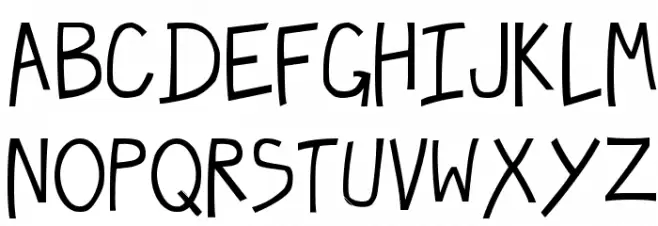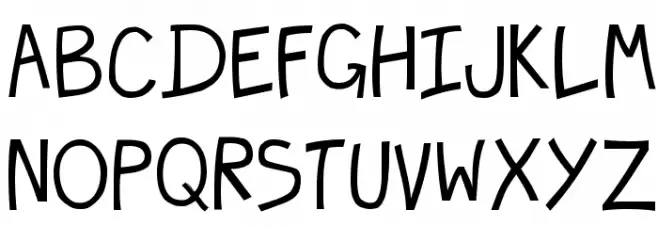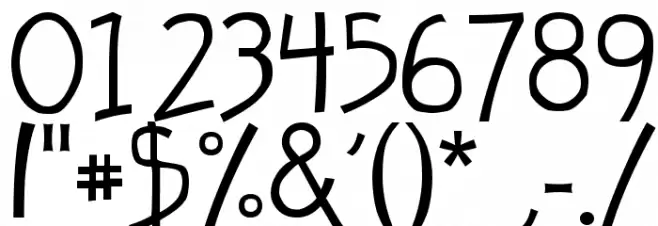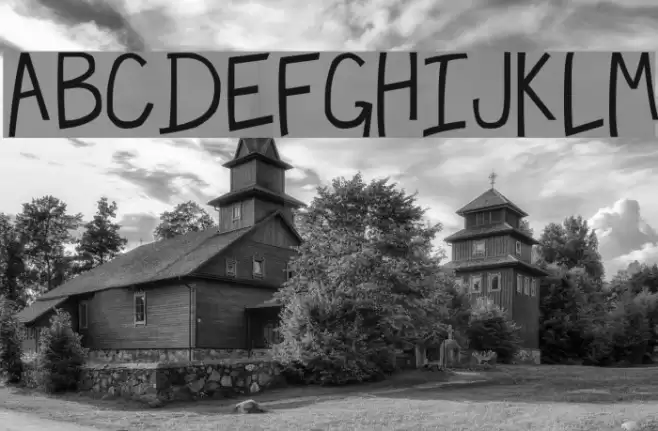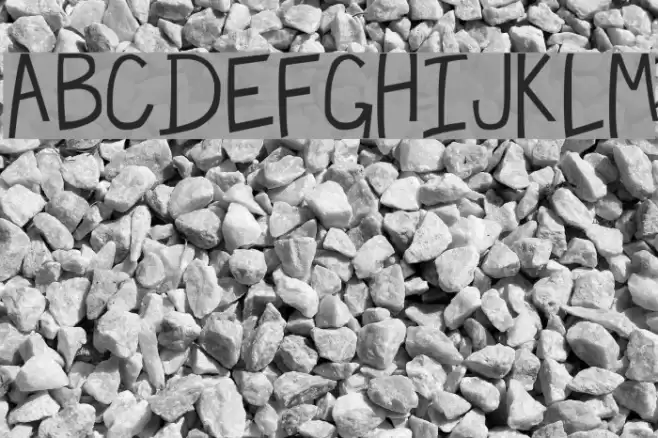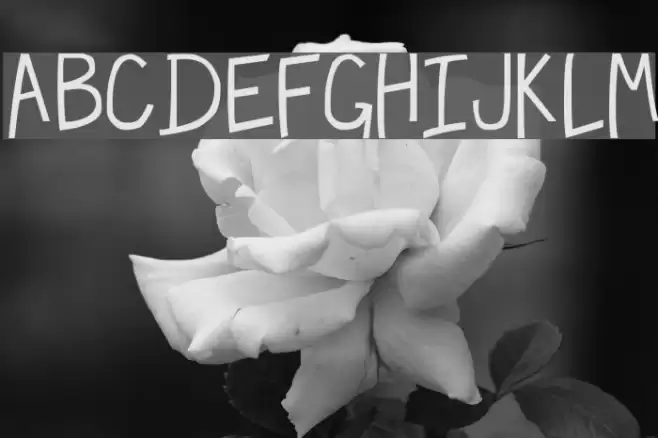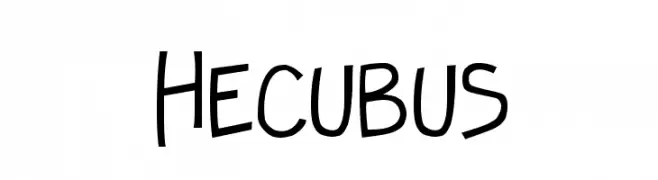
Hecubus
This font features a playful, handwritten style with a casual and informal appearance. The letters have a slightly uneven baseline, giving them a dynamic and lively feel. The strokes are consistent in width, providing a uniform look across all characters. The uppercase and lowercase letters maintain a cohesive style, with rounded edges and a slight tilt that adds to the whimsical nature of the font. The numerals and special characters follow the same design principles, ensuring a harmonious overall appearance. This font is ideal for projects that require a friendly and approachable aesthetic.
A playful, handwritten font with a casual and informal style.
- Proposed Projects: Ideal for children's books, greeting cards, casual branding, and playful social media graphics.
- Overall Style: Playful
- Use Case: Headlines, Informal text, Creative projects